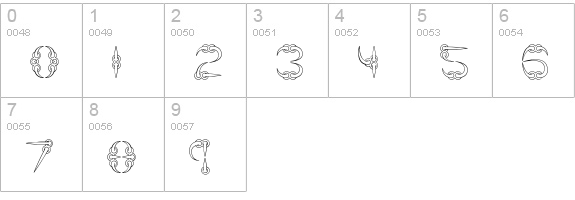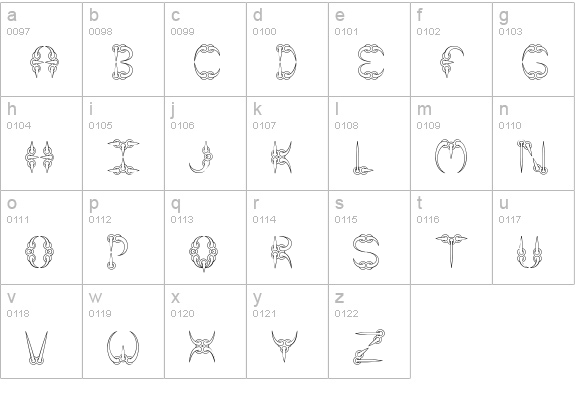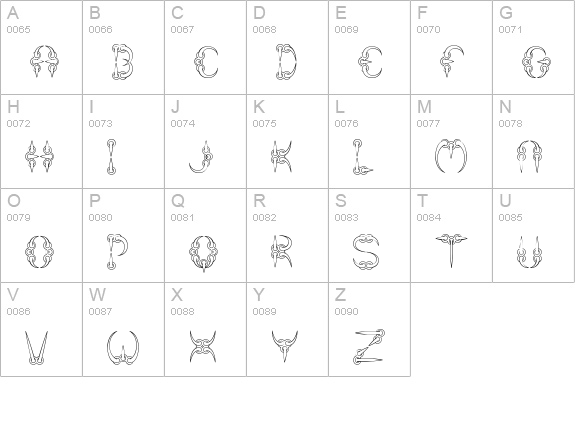
CLAW 1 BRK Font Details
CLAW 1 BRK font is a bold and striking typeface that exudes power and strength. Its sharp, angular edges give it a fierce and commanding appearance, making it perfect for designs that need to make a bold statement. This font is versatile and can be used for a variety of projects, from branding to posters to social media graphics. What makes CLAW 1 BRK font even more appealing is that it is free to download at FontsMarket.com. This means that you can easily access this powerful font without any cost, making it a valuable addition to your design toolkit. Whether you're looking to add a touch of edginess to your projects or need a font that commands attention, CLAW 1 BRK font has you covered. Download it today and unleash its powerful impact on your designs.